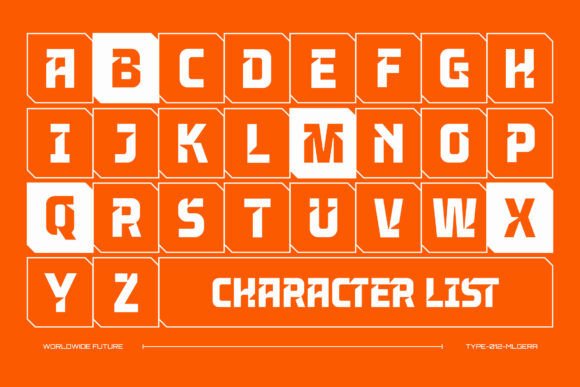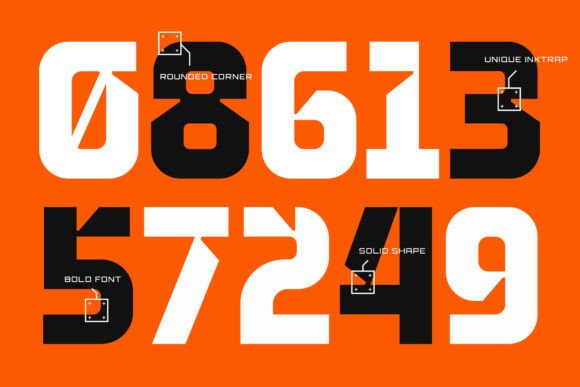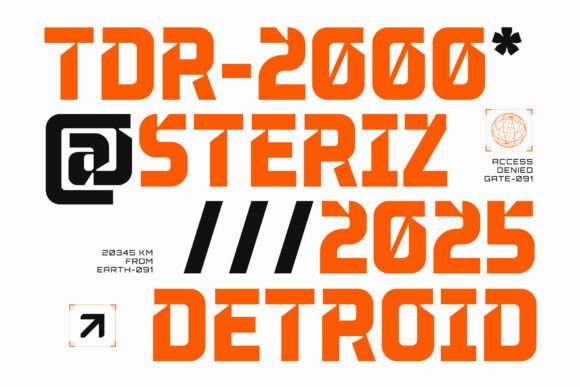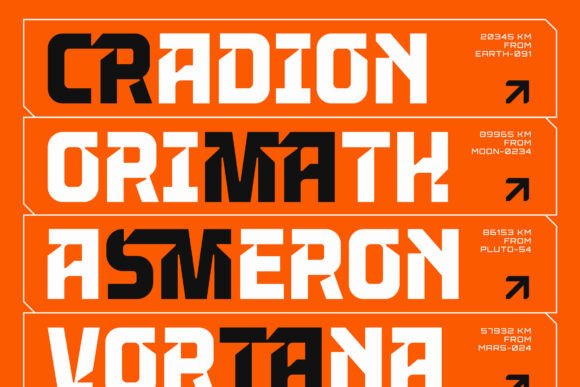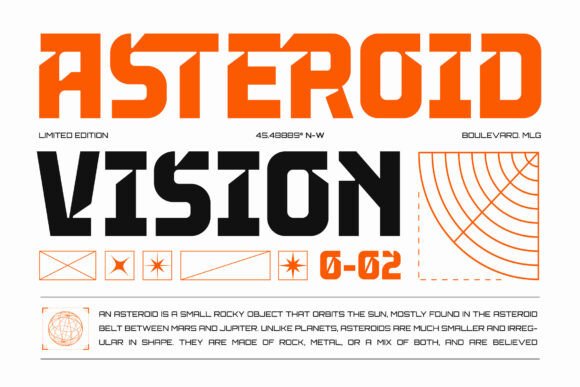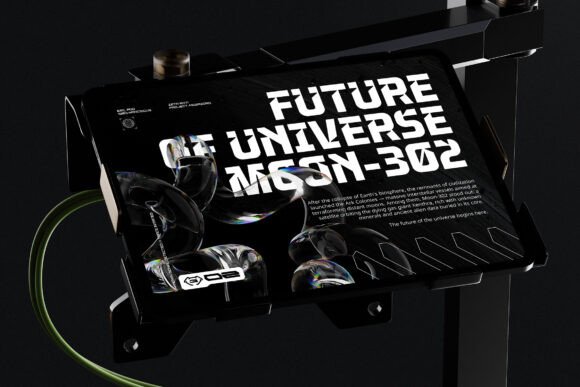
Unlocking the Power of Futuristic Typography
Have you ever stared at a blank canvas, feeling the creative juices start to flow, and suddenly, an idea hits you? That’s exactly what happened to designers when they laid eyes on the Bimazone Font. This bold, modern, and striking sci-fi display font is designed to make an undeniable impact, with futuristic typeface and geometric shapes combined with unique ink traps and subtly rounded corners, giving it a distinct and powerful presence.
The Bimazone Font is perfect for creative projects with strong visual identity, from dynamic posters to digital content, motion graphics, and bold corporate branding. Its unique design makes it an invaluable asset for designers looking to create cutting-edge projects that stand out from the crowd.
Bimazone Font Key Features
- Character Set: The font includes a comprehensive set of characters, including uppercase and lowercase letters, numbers, punctuation, and special characters, covering multiple languages.
- Font Size and Resolution: Bimazone Font is designed to work at various font sizes, from 8 to 72 points, and is optimized for resolutions up to 300 DPI.
- Unique Characteristics: The font features a unique blend of modern and vintage elements, with a distinctive geometric shape and subtle texture, making it ideal for creative and design-focused applications.
- Font Style and Variations: Bimazone Font is available in regular, bold, italic, and bold italic styles, providing users with flexibility and versatility in their design choices.
Bimazone Font Review
As a designer, I was excited to dive into the Bimazone font and see what it had to offer. Here’s my honest review.
- ✨ Unique and modern design: The Bimazone font has a distinct, futuristic feel that can add a touch of sophistication to any design project.
- ✨ Versatile: It can be used for a variety of applications, from headlines and titles to body text and even logos.
- ✨ Well-suited for digital use: The font’s design makes it well-suited for digital displays and screens, where it can shine with its crisp, clear lines.
- ⚠️ Limited legibility at small sizes: While the font looks great at larger sizes, it can become difficult to read at smaller sizes, which may limit its use in certain applications.
- ⚠️ Not ideal for long blocks of text: The font’s unique design can make it challenging to read when used for large blocks of text, as the rhythm and flow can become disrupted.
Overall, I think the Bimazone font is a great addition to any designer’s toolkit. While it may have some limitations, its unique design and versatility make it a great choice for many applications. With careful use and consideration, I believe the Bimazone font can add a touch of modern sophistication to any design project.
Bimazone Font is a modern, sans-serif font that works well for:
- Body text in digital products and websites
To get the most out of Bimazone Font, use it consistently across your design project and pair it with a clear, simple color scheme.